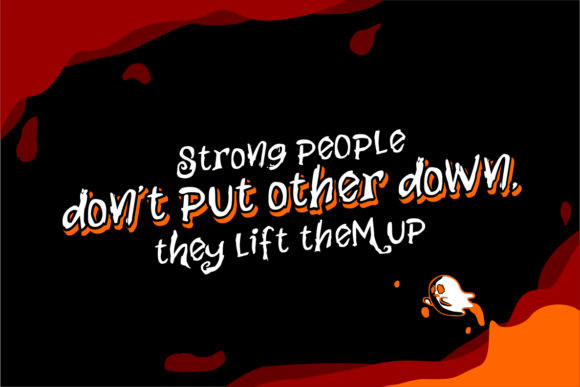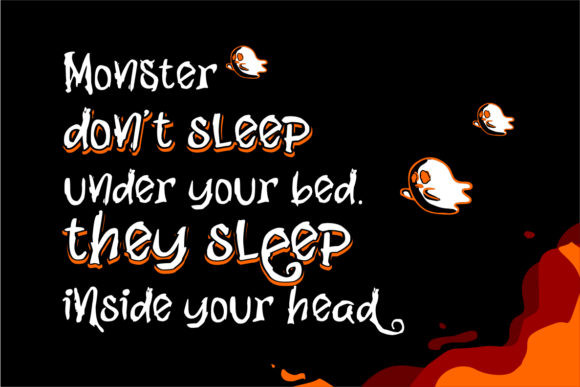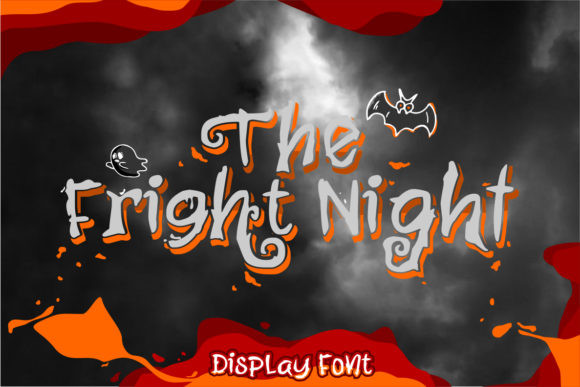
The Fright Night Font
The Fright Night is a classic horror-themed display font that celebrates all things Halloween. Get inspired by its unique style!